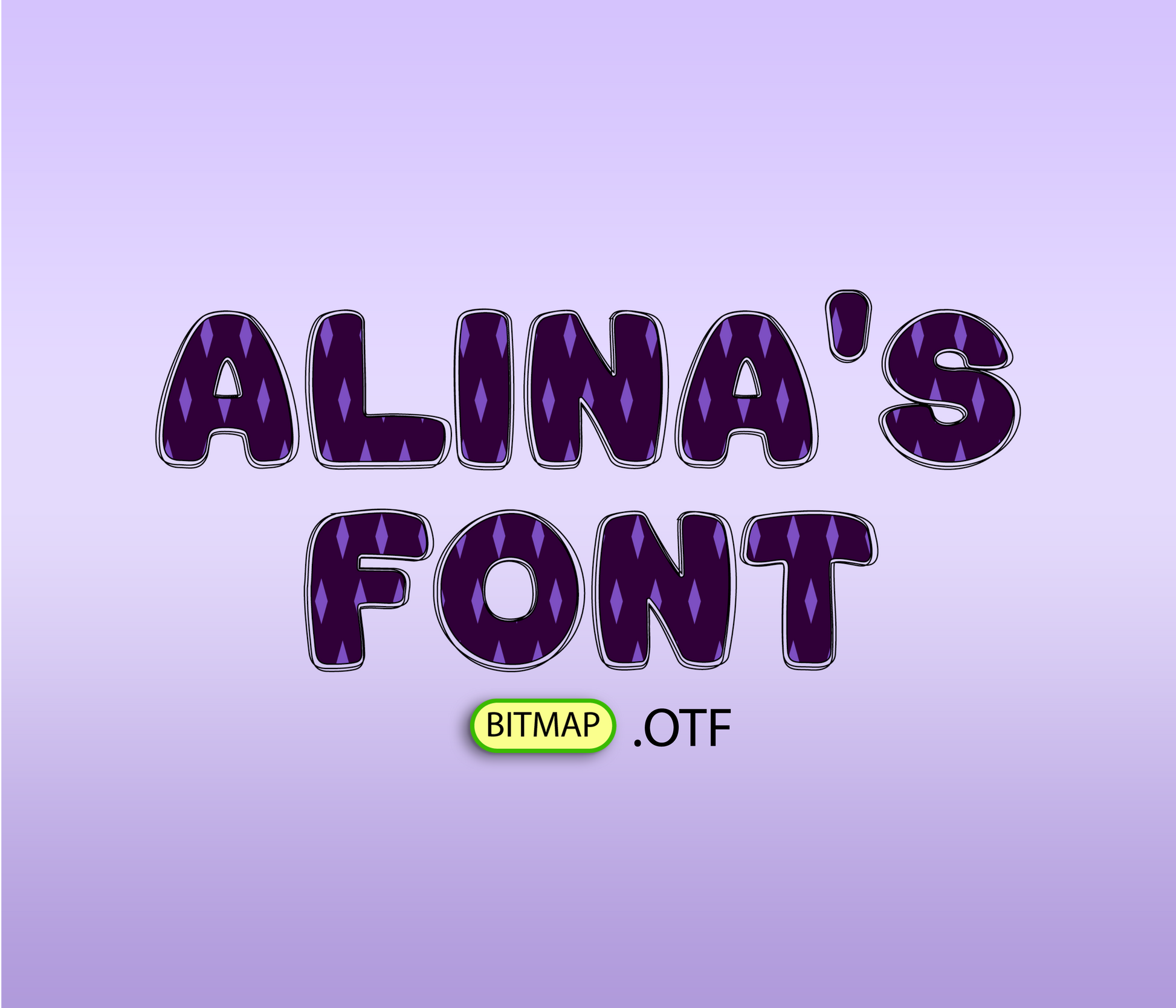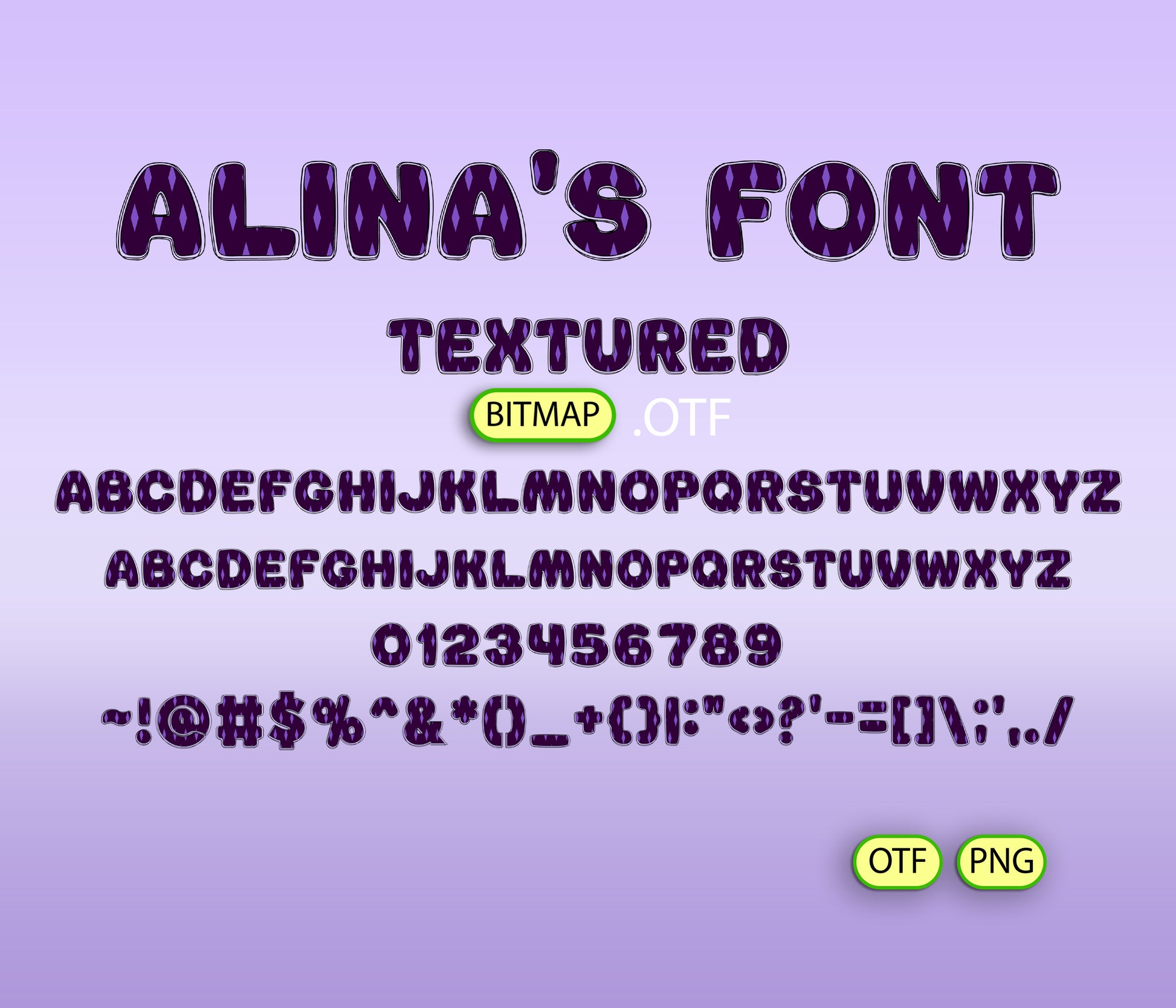
Shadowy Prodigy Pattern Font
Shadowy Prodigy Textured Font: A Gothic Teen Narrative
Uncover the mystique of a brooding young protagonist with the Shadowy Prodigy Textured Font. Crafted with patterns inspired by a dark yet whimsical realm, each letter unveils a story, blending the gothic with the creative. Ideal for artisans, this font lends a unique touch to cake toppers, birthday invitations, and t-shirts, encapsulating the eerie elegance synonymous with a brilliant, misunderstood teen in every design.
This font captures the essence of a character known for her sharp wit and macabre interests, perfect for projects that require a touch of enigmatic charm. Whether you're creating materials for a themed event, designing merchandise inspired by gothic tales, or simply want to add a mysterious flair to your work, the Shadowy Prodigy font offers a perfect blend of sophistication and eeriness.
Let your creativity dance with the shadows as you craft designs that are as intriguing and complex as the character that inspired this font. Each letter becomes a miniature work of art, telling its own story within the larger narrative of your design.